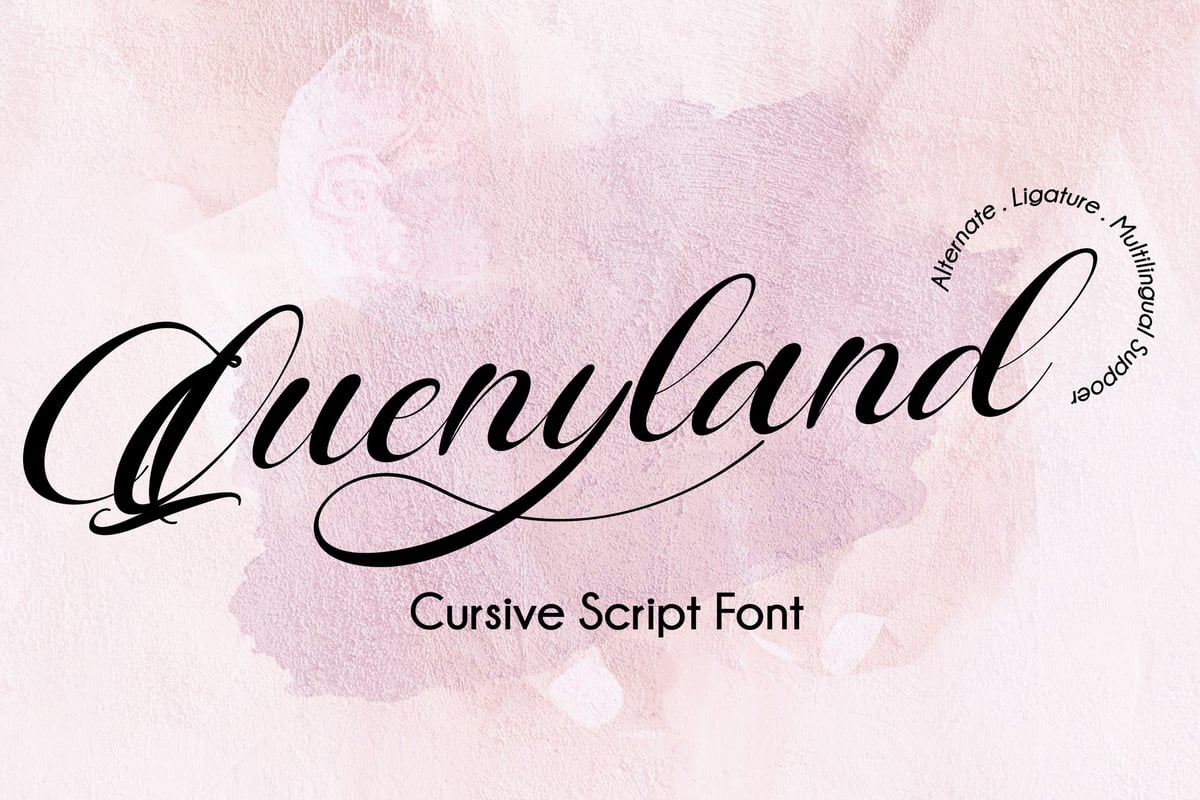
Quenyland - Cursive Script Font
Quenyland is a stunning cursive script font that brings elegant calligraphy style to your designs.
Beautiful and versatile, Quenyland is the perfect typeface for invitations, greeting cards, branding materials, business cards, quotes, posters, and so much more. Its flowing letterforms and rich character set make every design feel polished and refined.
The font is packed with OpenType features, giving you full creative control over your typography. Alternate characters are organized across multiple feature sets for easy access:
- Stylistic Sets
- Stylistic Alternates
- Contextual Alternates
- Swash characters
- Ligatures